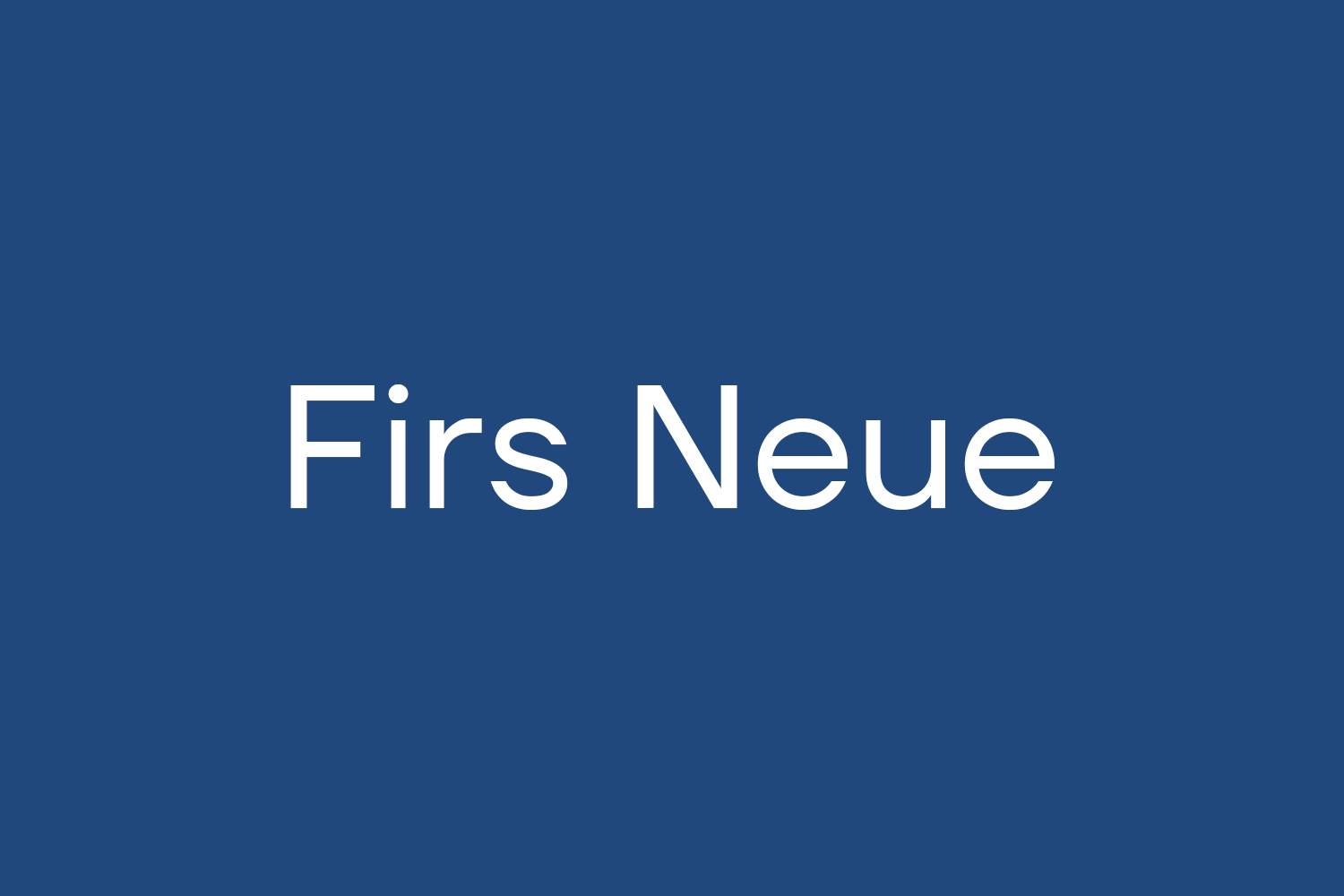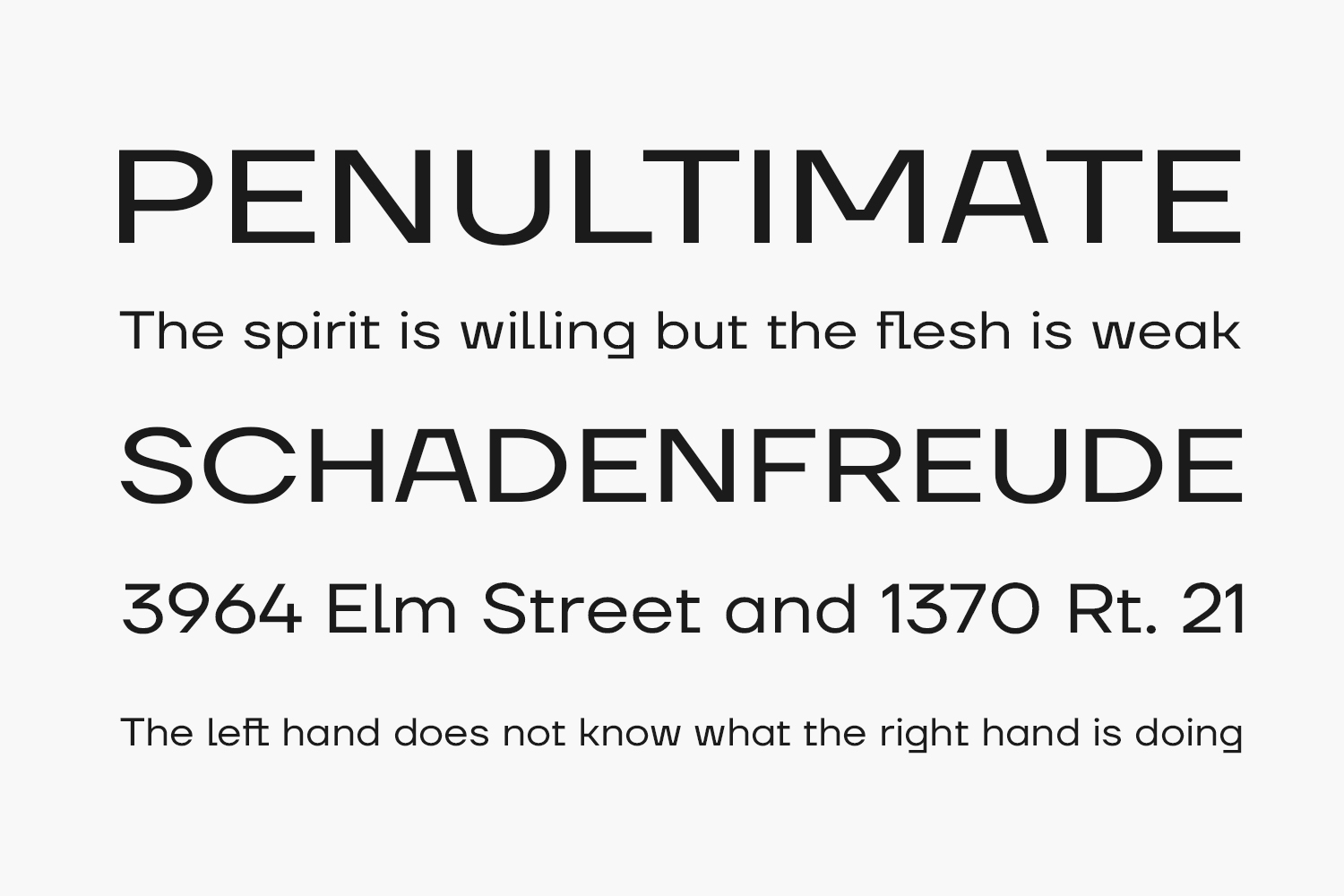
Firs Neue Free Font Family features a simple and straightforward design, with balanced proportions that give it a friendly and approachable feel. It is available in nine weights, from thin to black, with matching italics for each weight. This makes it a versatile font that can be used for a wide range of applications, from headlines and titles to body text and captions. Firs Neue Free Font Family is free for personal use only. Please purchase the full version for commercial use.
Designed by TypeType Foundry